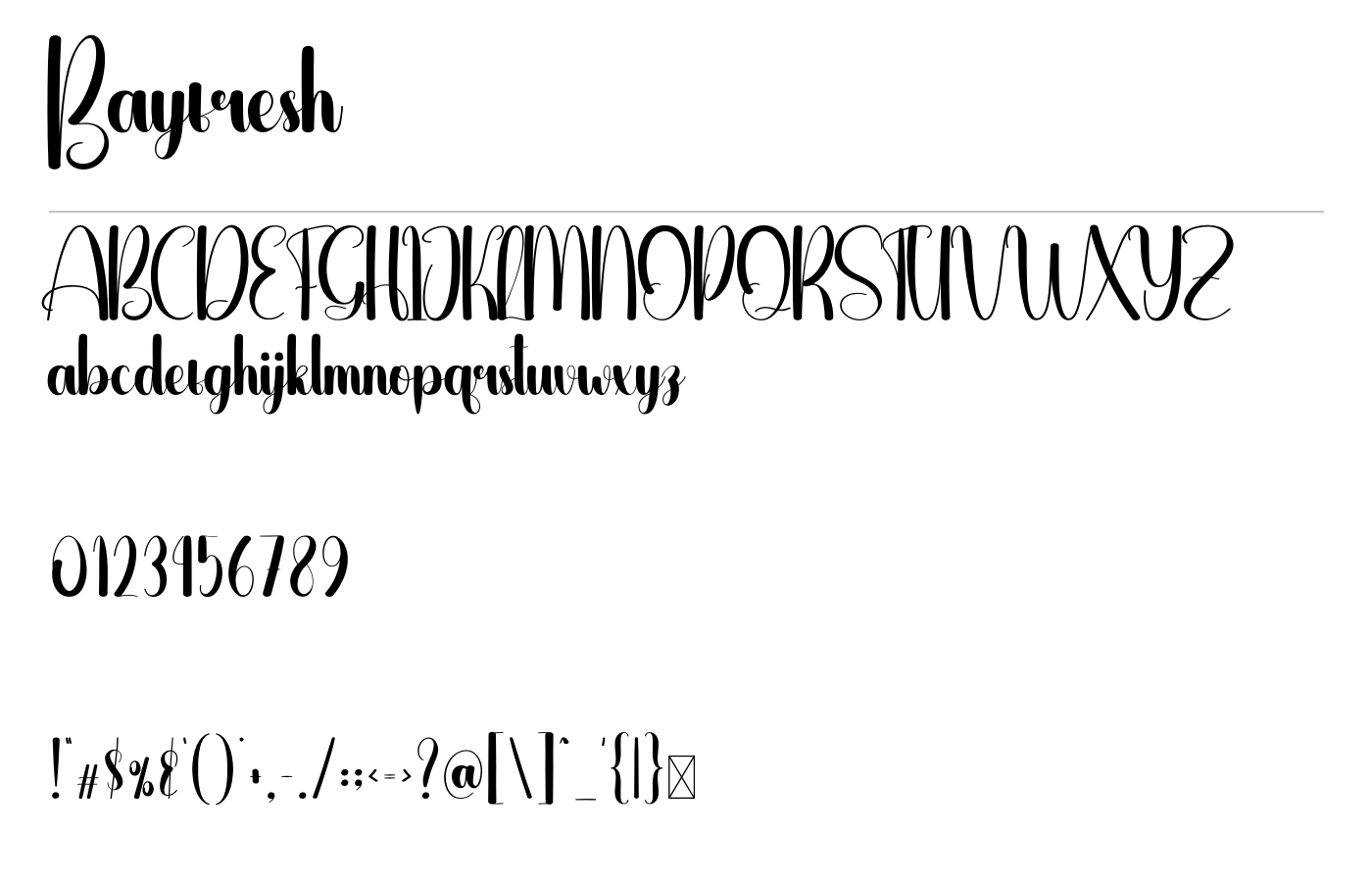
Bayfresh is a stylish script font with a playful yet elegant character, featuring tall, slender uppercase letters accented with delicate loops and wide, bold lowercase forms. Its distinctive contrast between thick and thin strokes, combined with unique letter shapes, makes it perfect for branding, invitations, and creative projects that want a fresh, modern flair with a touch of sophistication. This font shines in headlines, logos, and packaging where a lively yet refined personality is desired.
Bayfresh Font